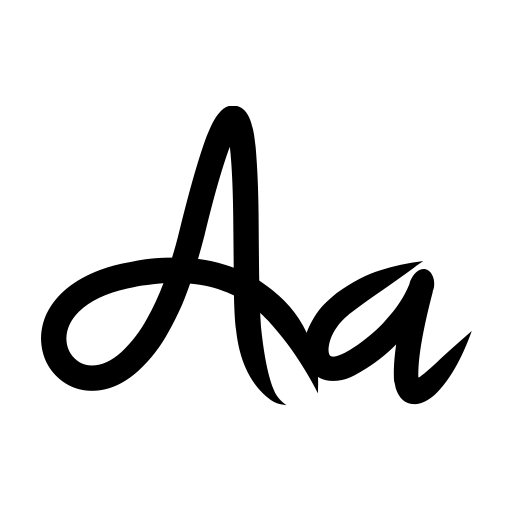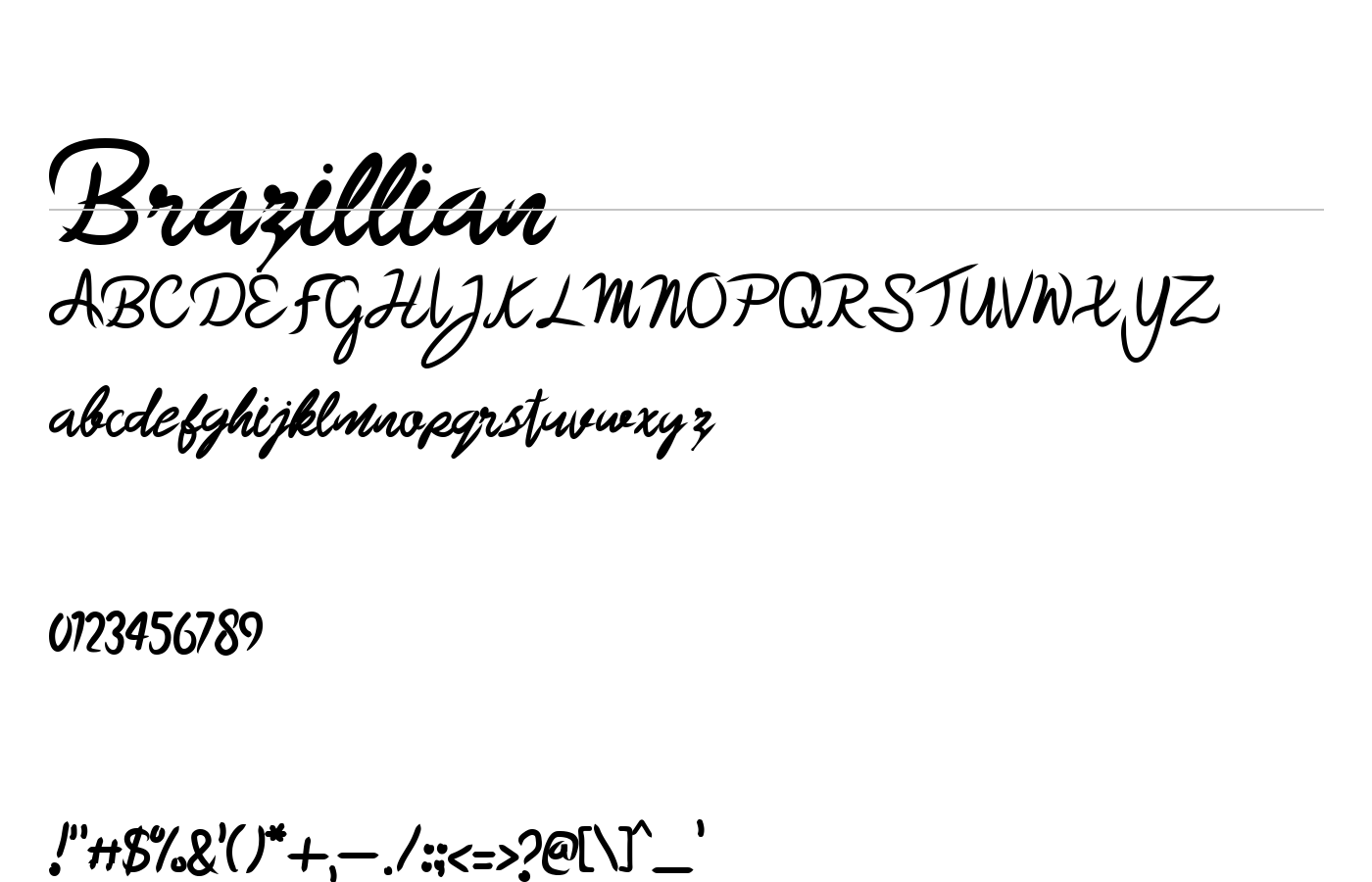
Brazillian Font is a lively and elegant script typeface that features smooth, flowing strokes with a medium weight and slightly condensed width. Its calligraphic style imbues a sense of sophistication and personal touch, making it ideal for creative designs that want to convey warmth and charm, such as invitations, branding, and logos. This font works well in display use where its graceful, connected letterforms can shine and add a stylish, handcrafted feel.
Brazillian Font
About Brazillian Font
| Font family | Brazillian Font |
| Designer | Skiller Studio |